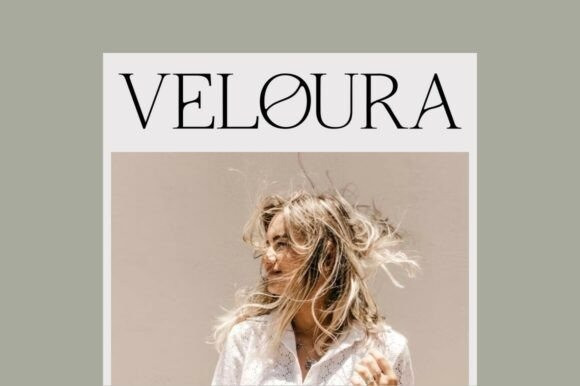
Bellovia Font is a modern serif font with a touch of feminine elegance, combining luxury, style, and timeless charm. Designed to bring a chic and sophisticated look, this typeface is perfect for branding, logos, editorials, magazines, wedding invitations, packaging, and any creative project that needs an elegant and classy serif.
With its refined curves, distinctive characters, and artistic details, Bellovia strikes the perfect balance between modern design and a romantic, feminine vibe, making your work look more exclusive and professional.
If you are looking for a serif typeface that is modern, elegant, and feminine, Bellovia is the perfect choice to elevate your design projects.